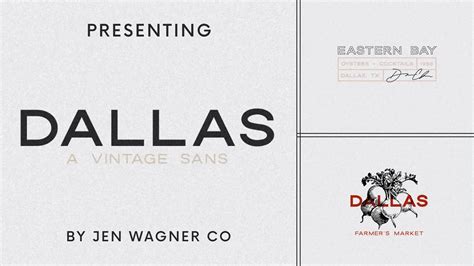
Hey guys! So, you’re on the hunt for the Dallas font , and you want it for free? You’ve come to the right place! Finding cool, high-quality fonts can be a game-changer for any design project, whether you’re whipping up a logo, designing a flyer, or just sprucing up a social media post. The Dallas font, with its unique vibe, is a popular choice, and luckily, there are ways to snag it without breaking the bank. Let’s dive into how you can get your hands on this awesome typeface and make your designs pop!
Understanding the Dallas Font
Before we get into the nitty-gritty of downloading, it’s crucial to understand what makes the Dallas font so special. Fonts, much like people, have personalities. Some are sleek and modern, others are bold and vintage, and some, like Dallas, offer a distinctive character that can elevate your text from ordinary to extraordinary. The Dallas font is often characterized by its [describe key features, e.g., bold strokes, sharp serifs, retro feel, script style, geometric structure, etc. - if you have specific info, add it here. Otherwise, keep it general ]. This unique blend of features makes it versatile enough for a range of applications. Imagine using it for a retro-themed party invitation – it would instantly set the mood! Or perhaps for a modern branding project where you want a touch of classic flair. Its legibility is also a key factor; a great font is not just about looks, but also about how easily your audience can read your message. The Dallas font strikes a good balance, ensuring your text is both stylish and understandable. When choosing a font, consider the message you want to convey. Are you aiming for playful, serious, elegant, or edgy? The Dallas font can lend itself to several of these, depending on how you use it and the context of your design. We’ll explore some of these applications shortly, but first, let’s get you that download link!
Using the Dallas Font in Your Projects
Now that you’ve got the Dallas font installed , it’s time for the fun part: using it! This is where your creativity really shines. The versatility of the Dallas font means it can be adapted for a wide array of projects. Think about the overall aesthetic you’re aiming for. If you’re designing a vintage poster, pairing the Dallas font with a distressed texture or a muted color palette would be perfect. For a modern, minimalist look, you might use it in a clean layout with plenty of white space, perhaps in a bold, all-caps setting. Its unique character can add a touch of personality without overwhelming the design.
Consider the hierarchy of your text. The Dallas font might be fantastic for headlines and titles, where you want to grab attention. For body text, you might want to pair it with a more neutral, highly legible font to ensure readability, especially for longer passages. This contrast can make your headlines stand out even more. Don’t be afraid to experiment with different weights and styles if the font family offers them (e.g., regular, bold, italic). Each variation can evoke a different mood.
Let’s brainstorm some specific ideas:
• Logos: A strong, memorable logo often uses a distinctive font like Dallas. Ensure it’s legible at small sizes.
• Social Media Graphics: Eye-catching quotes or announcements can benefit from a unique font.
• Invitations & Announcements: Weddings, parties, or special events can get a personalized touch.